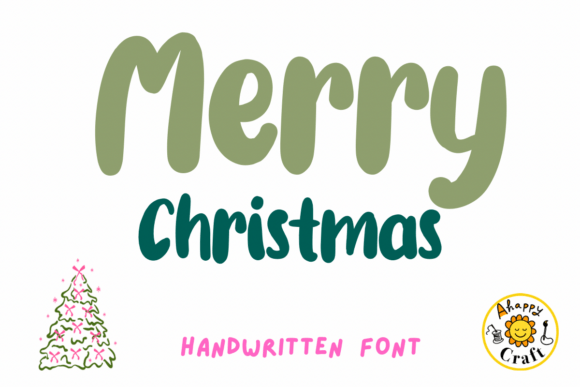
The Ultimate Guide to Casually Font: Adding a Touch of Whimsy to Your Designs
I’ll never forget the time I was working on a project for a client’s wedding invitation suite. I had the perfect design concept, but I just couldn’t find the right font to bring it all together. The client wanted something sweet, friendly, and elegant, but not too formal. I spent hours scouring the internet, trying out font after font, until I stumbled upon Casually. It was love at first sight! 💕
Its natural, handwritten style and unique flair made it the perfect fit for the project. The client was thrilled, and I was relieved. From that day on, Casually has been a staple in my font collection, and I’m excited to share its magic with you.
An Honest Review of Casually Font
What I Love About Casually ✨
- ✅ Unique and eye-catching: Casually’s natural, handwritten style makes it stand out from more traditional fonts.
- ✅ Versatile: It can be used for a wide range of designs, from wedding invitations to social media graphics.
- ✅ Elegant yet approachable: Casually strikes the perfect balance between sophistication and friendliness.
- ✅ Easy to read: Despite its unique style, Casually is surprisingly legible, even at smaller font sizes.
While Casually is an amazing font, it’s not perfect. Here are a few things to keep in mind:
- ⚠️ Limited use in very formal designs: While Casually is elegant, it may not be the best fit for very formal or corporate designs.
- ⚠️ May not work well in small text: While Casually is legible, it may not be the best choice for very small text, such as body paragraphs or captions.
A Practical Guide to Using Casually Font
The Story Behind Casually Font
While the true story behind Casually’s creation is unknown, it’s easy to imagine that it was designed with love and care. Perhaps the designer was inspired by the beauty of handwritten letters and the joy of creating something unique and special. Whatever the inspiration, Casually is a true gem that’s sure to bring a touch of whimsy to your designs.
Q: Is Casually a script font?
A: While Casually has a handwritten, cursive feel, it’s not a traditional script font. It’s more of a handwritten font with a natural, unique style.